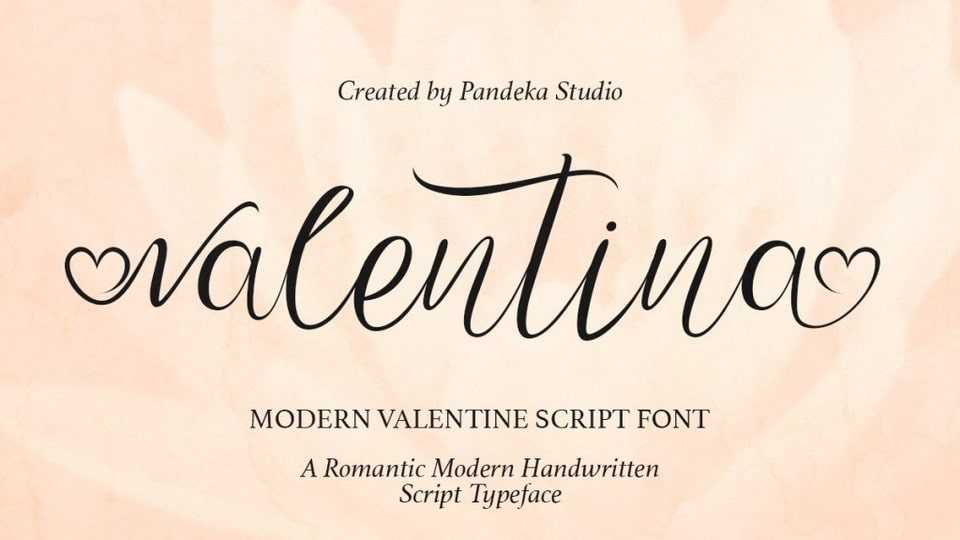
Download Valentina font, a lovely and elegant script typeface designed for signature logos, wedding invitations, custom branding, websites, social media and more.